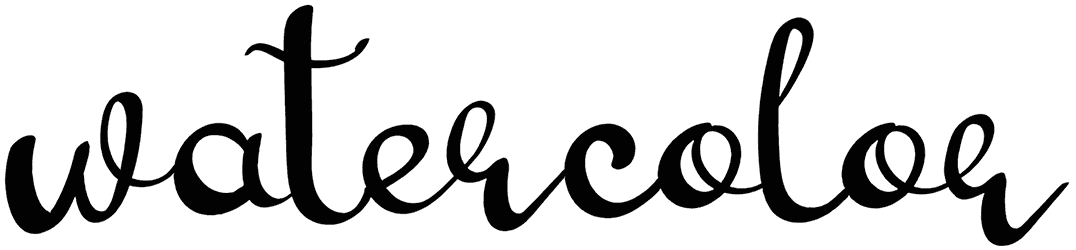
Watercolor Font
Do you want to strike everyone with your design? Use this calligraphy font with a casual and contemporary vibe. Watercolor can be exactly the option that creates elegant contexts suiting your taste. Just place it for postcards, product logos, planners, or whatnot, and this watercolor font will make them unique.